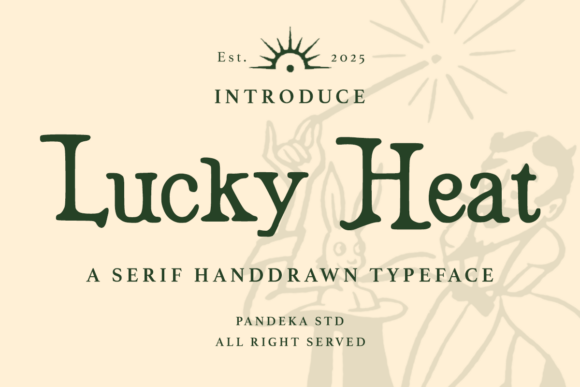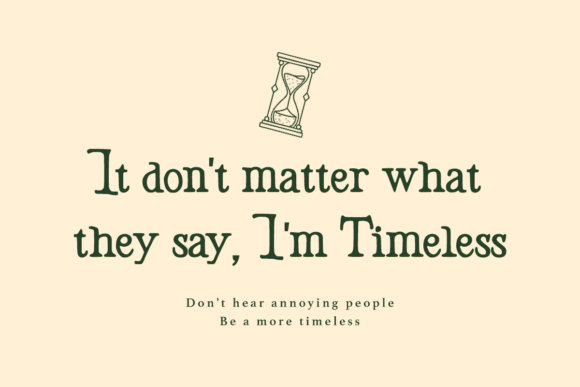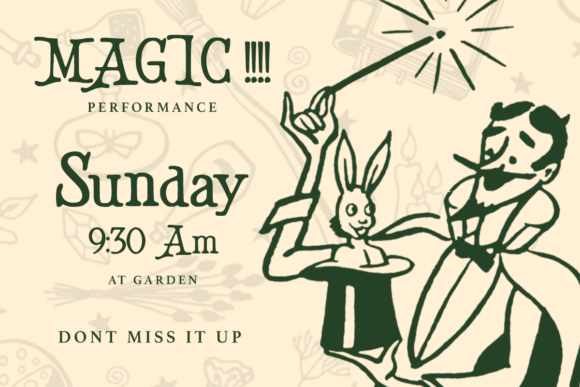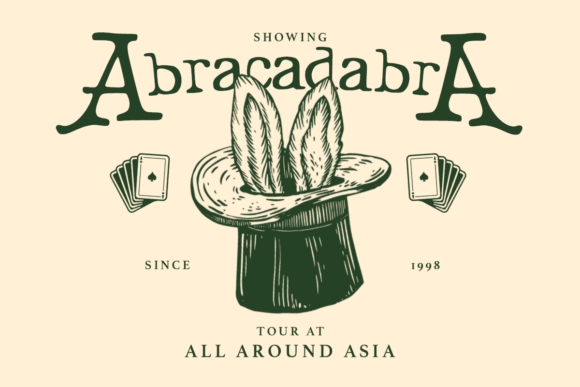
Lucky Heat Font: Bold Vintage Serif for Retro Branding & Playful Design
About the Lucky Heat Font
Elevate your designs with Lucky Heat Font, a font that combines sophistication with readability. Lucky Heat is a bold, hand-drawn serif font that brings vintage Western vibes to life. With a playful yet rugged aesthetic, it’s perfect for retro handdrawn serif designs, vintage posters, western-themed branding, bold typography layouts, playful lettering, classic saloon signage, rustic packaging, and artistic display projects.
Lucky Heat excels in headlines, posters, and short-form branding applications where its bold character can make a statement. It’s ideal for projects evoking a vintage or Western feel, such as whiskey labels, festival branding, or apparel designs. However, its handcrafted nature makes it less suitable for body text or UI elements requiring high readability.
Pair Lucky Heat with a clean sans-serif like Montserrat for a balanced contrast, or a more delicate script font such as Great Vibes for a touch of elegance. For a more rugged look, consider pairing it with a geometric sans-serif like Futura.
Its overall personality is bold, playful, and slightly rebellious, yet retains a classic, timeless quality. This makes it perfect for brands aiming for a vintage-inspired yet contemporary image.
Lucky Heat Font Example